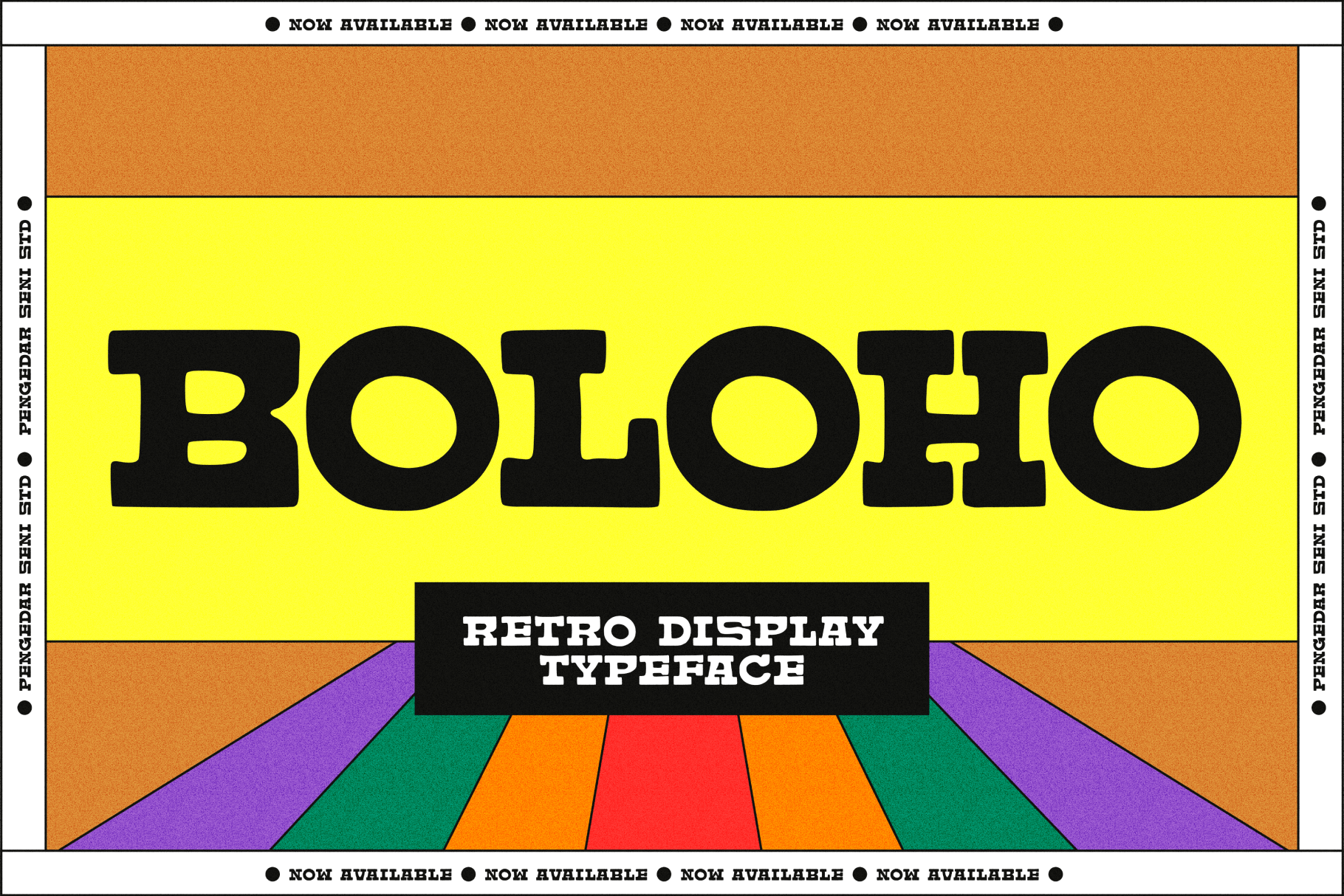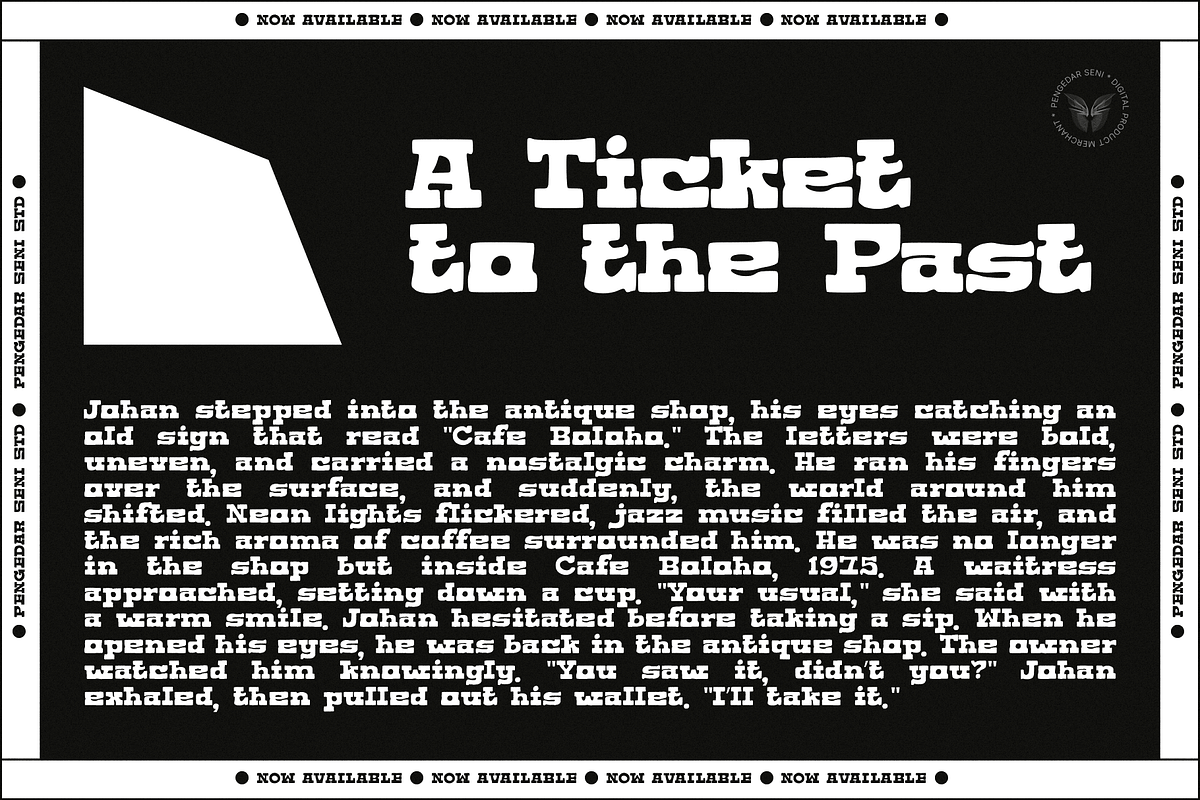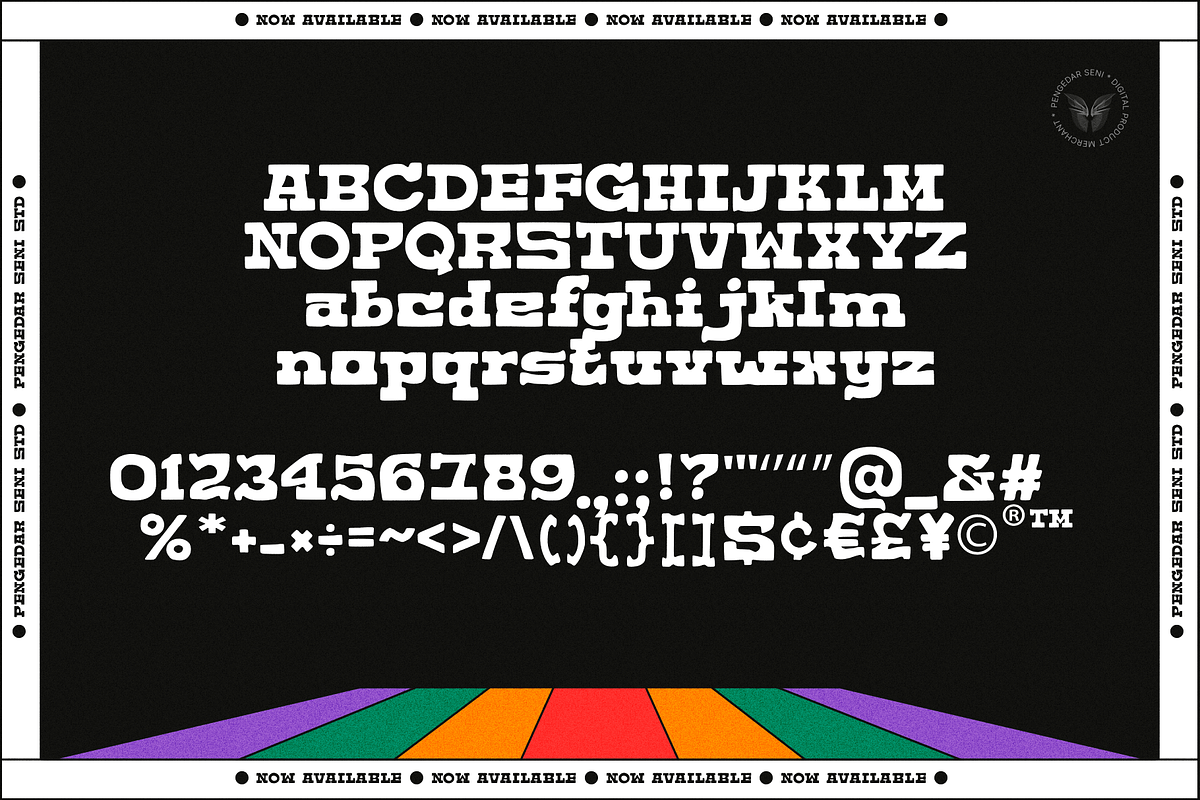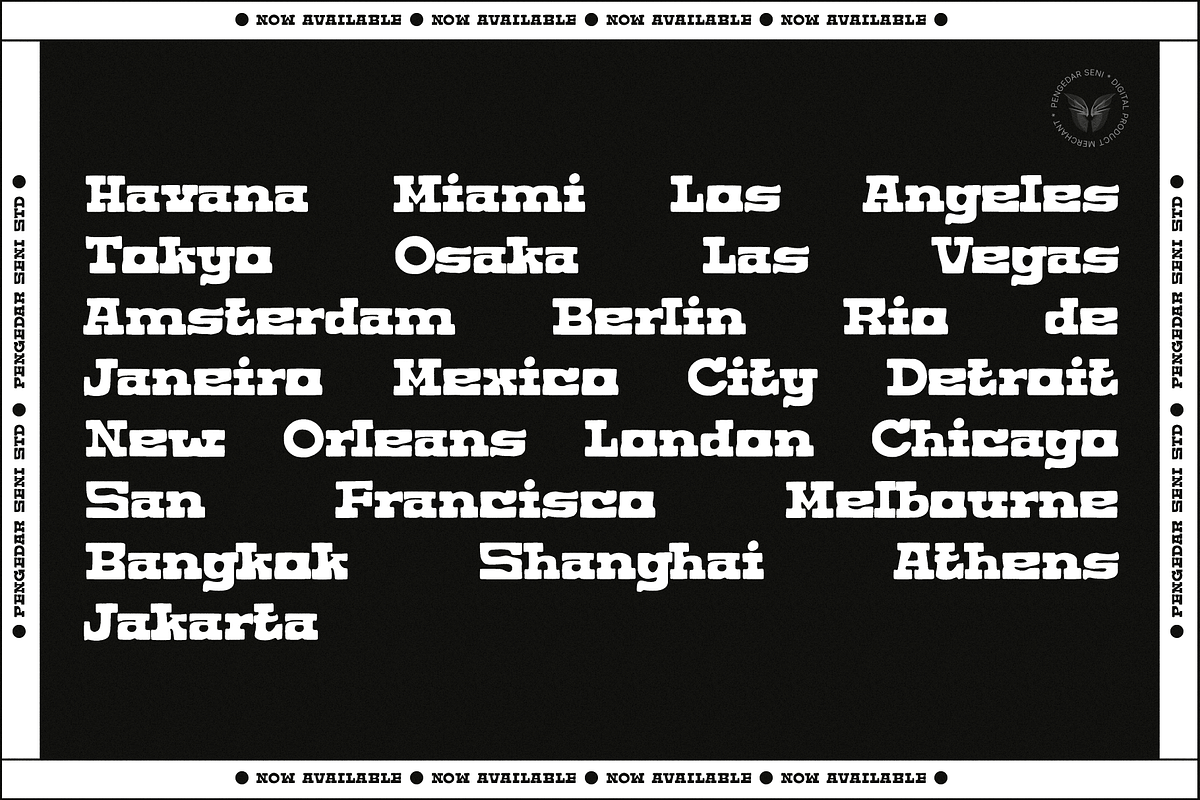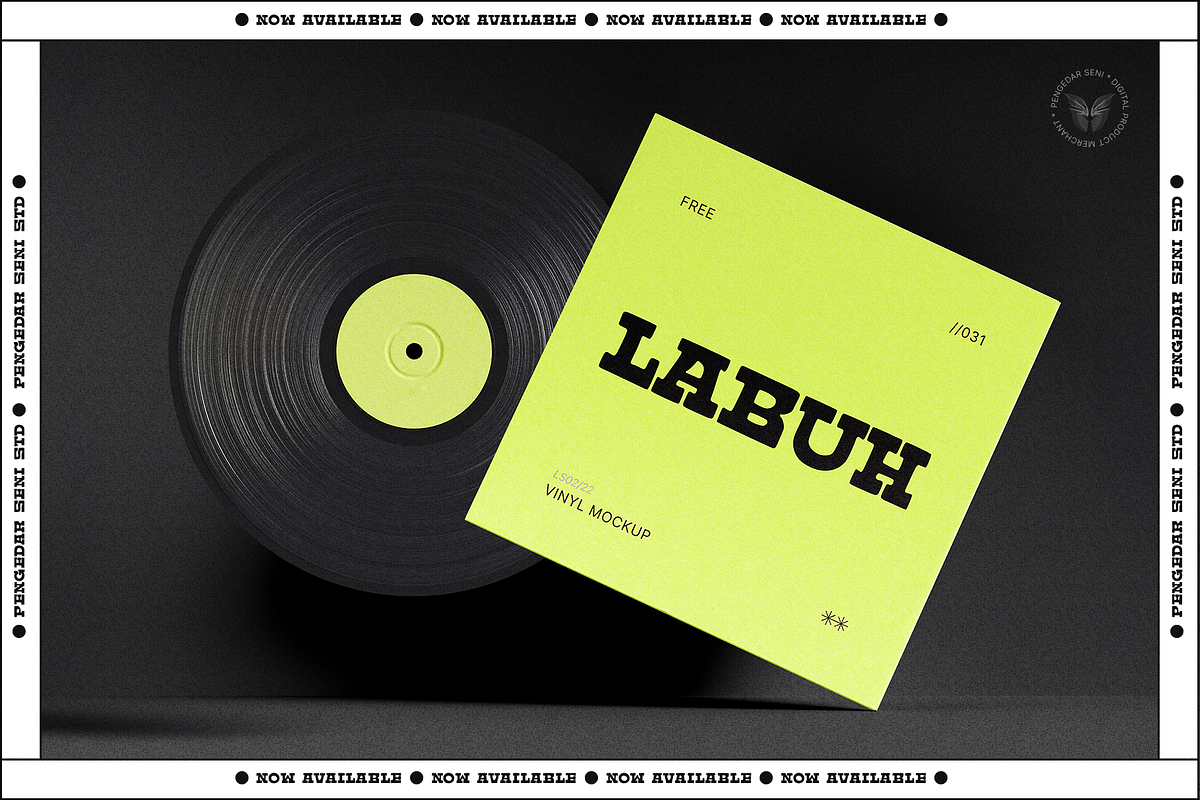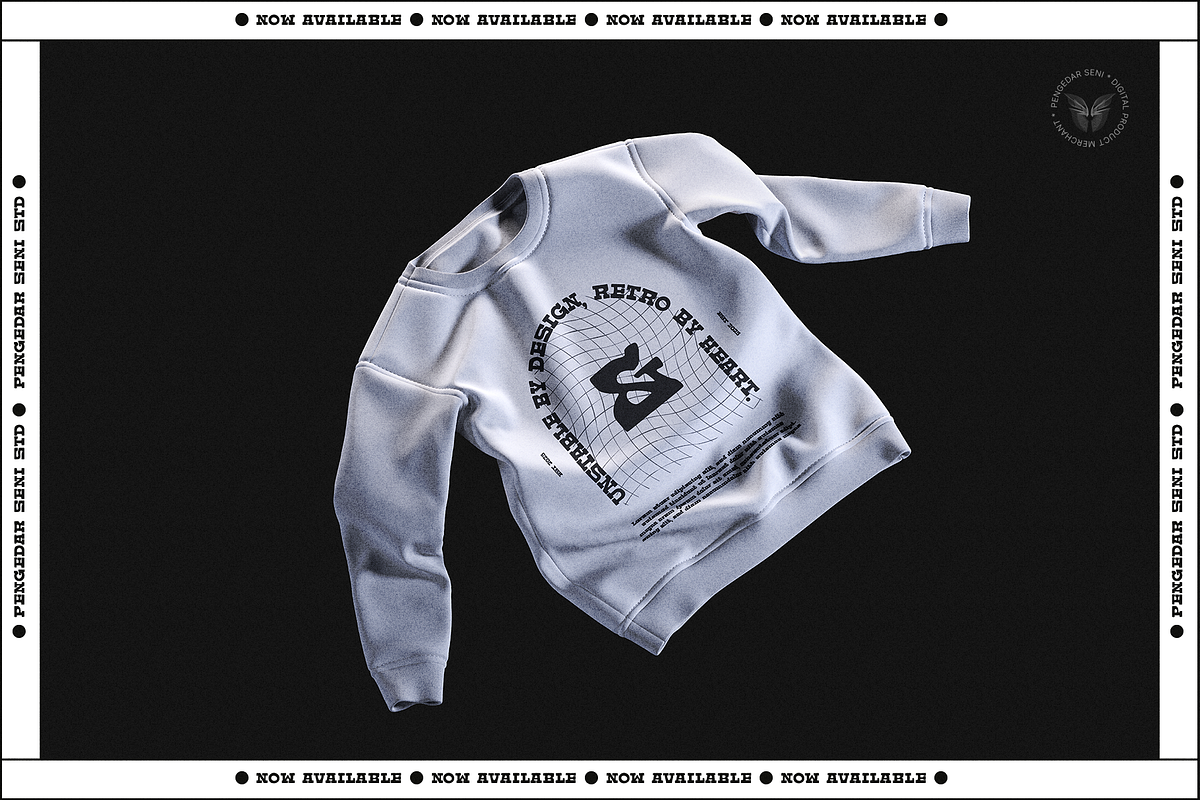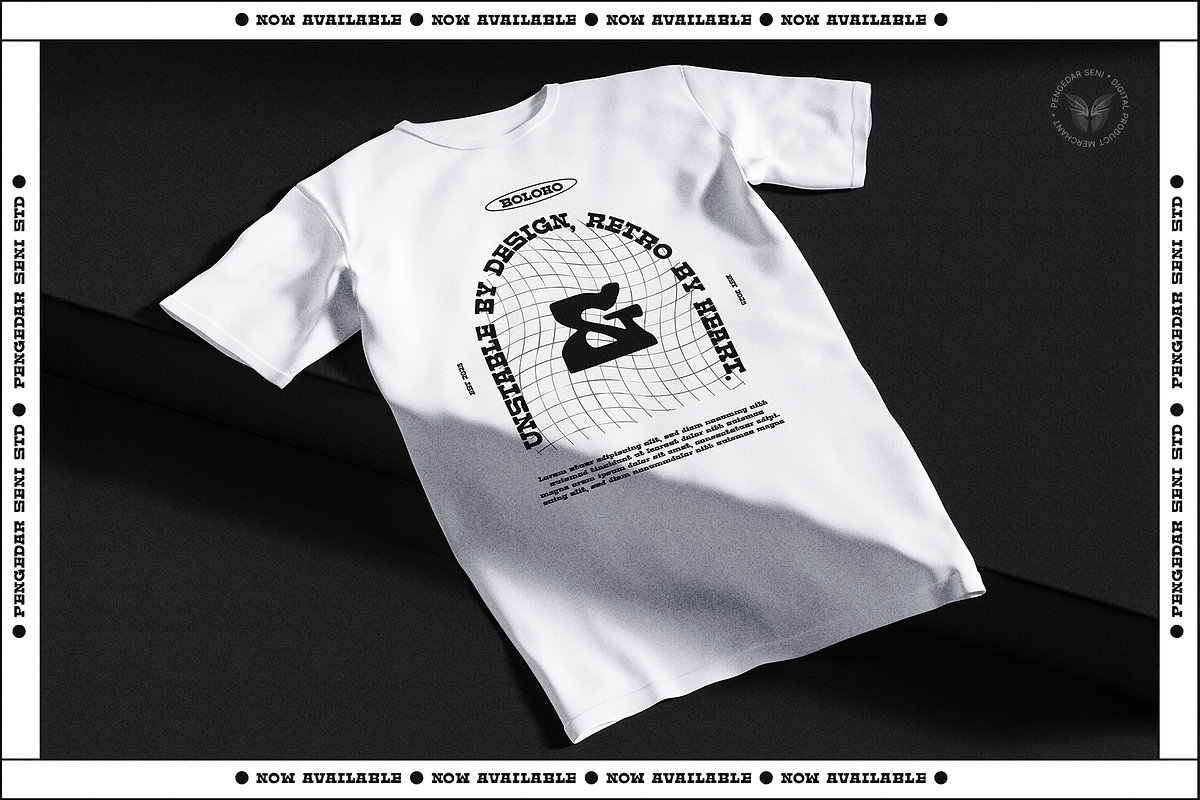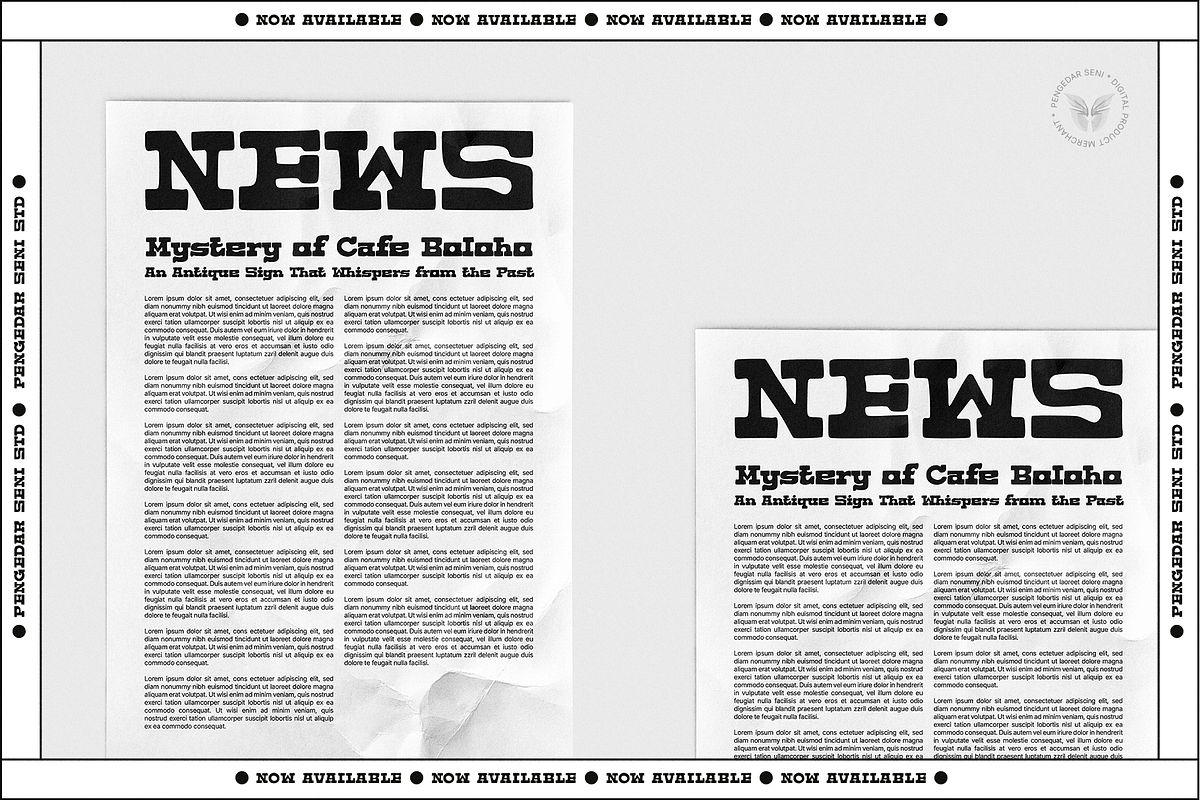
Boloho – Retro Display Typeface
Boloho – Retro Bold Display Typeface
Unstable by Design, Retro by Heart.
Boloho is an ultra-bold display typeface that captures the raw, unpolished charm of vintage typography. With its unstable, hand-crafted aesthetic, Boloho rejects rigid precision, embracing a natural imperfection that brings warmth and character to any design. Whether for posters, branding, headlines, or retro-inspired visuals, this font delivers a nostalgic yet rebellious statement.
The Meaning Behind Boloho
The name Boloho represents a fusion of strength and imperfection:
🌀 "Bolo" (Bold & Unapologetic) – A nod to its extreme thickness, making a loud, confident impact. 🔄 "Ho" (Organic & Freeform) – Reflecting the font’s unrefined, slightly irregular strokes, as if drawn by hand to preserve a vintage essence.
Boloho defies traditional display fonts by embracing slight distortions, mimicking the charm of old-school print designs where ink bleed, rough edges, and human touch created personality in every letter.
Why Choose Boloho?
- ✅ Ultra-Bold Retro Aesthetic – Perfect for vintage-inspired branding, posters, and statement typography.
- ✅ Unstable Yet Intentional Design – Irregular strokes create a raw, handmade feel without sacrificing readability.
- ✅ Authentic 70s & 80s Vibes – Inspired by old signage, magazine ads, and classic hand-drawn typography.
- ✅ Perfect for Headlines & Logos – Commands attention while maintaining a nostalgic touch.
Boloho is more than just a typeface—it’s a bold tribute to the imperfect beauty of retro design. Let your typography break the rules and embrace the art of imperfection. 🌀🔥